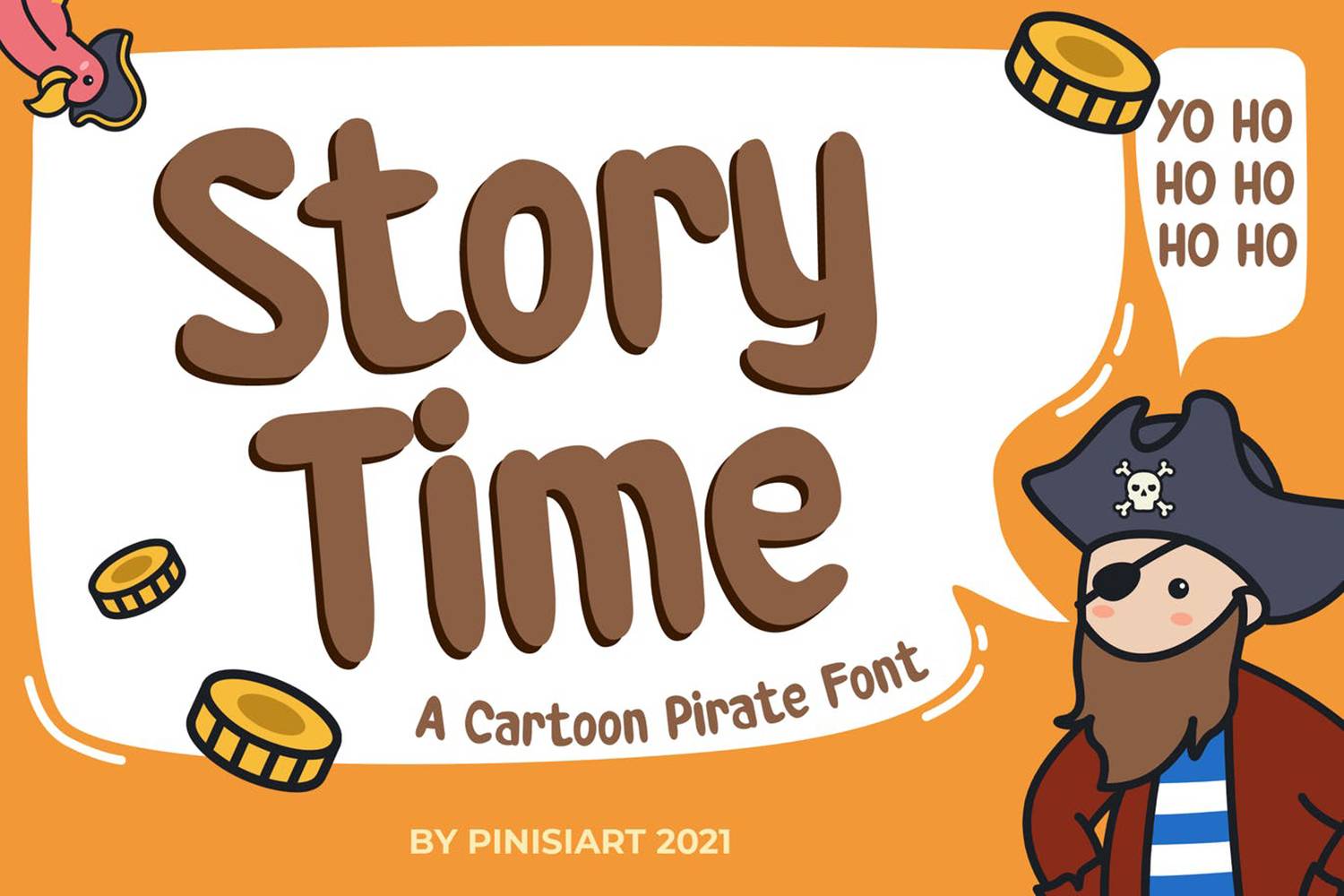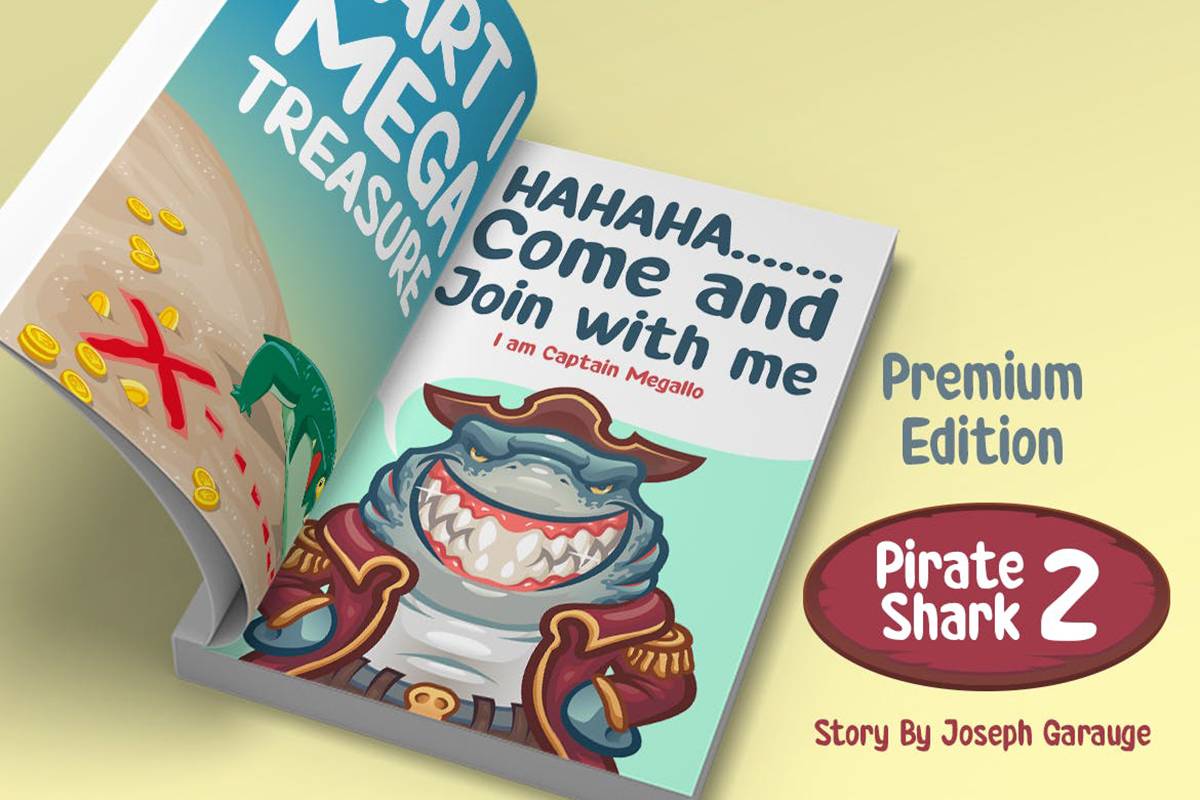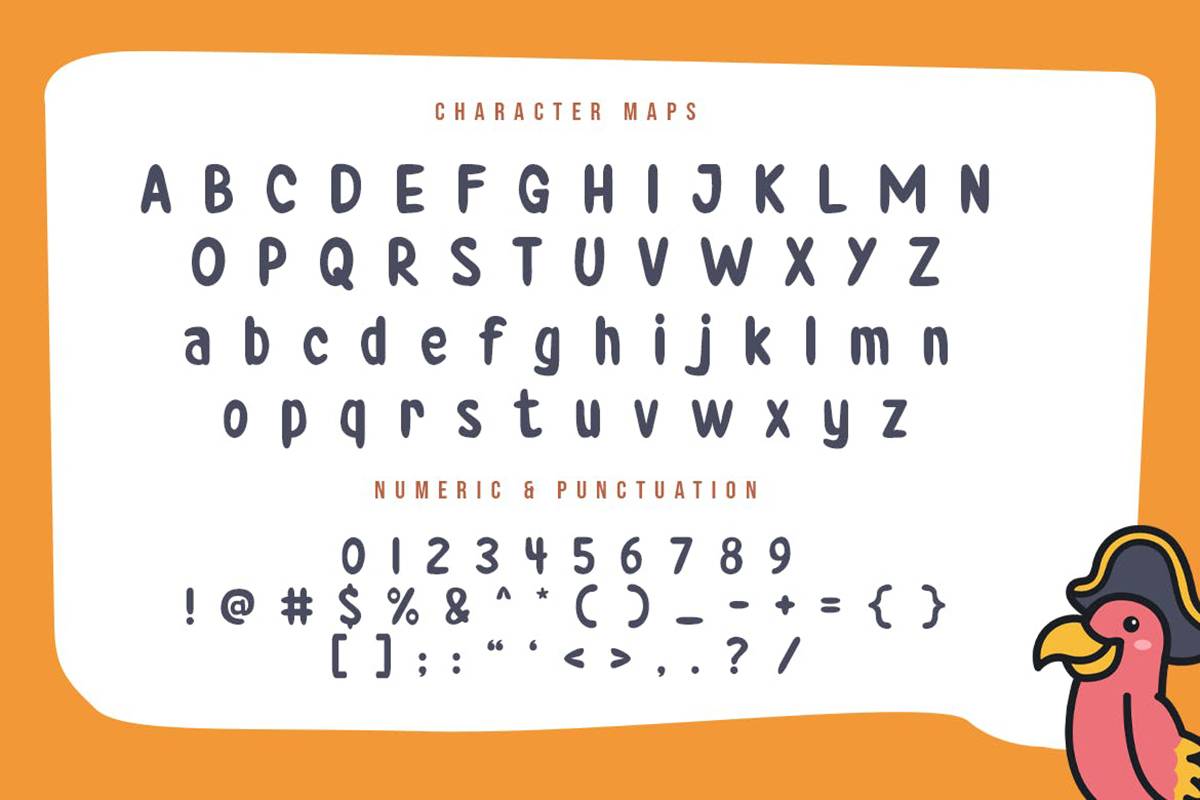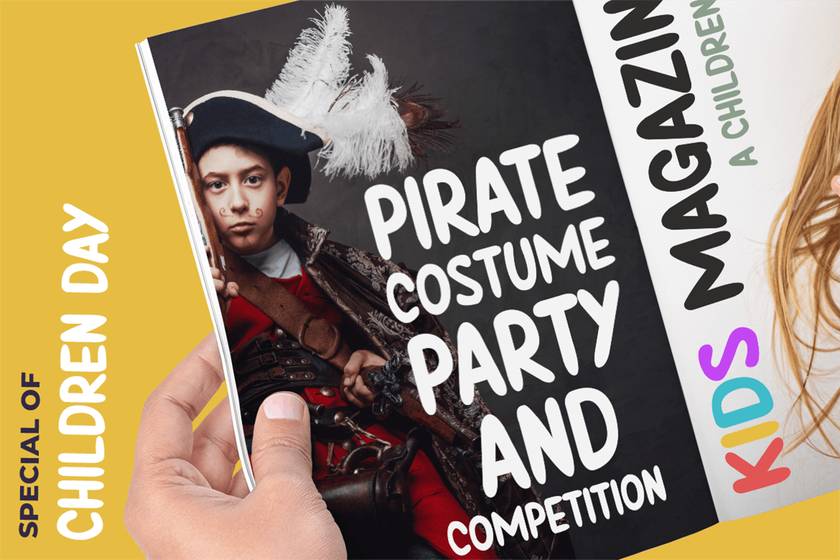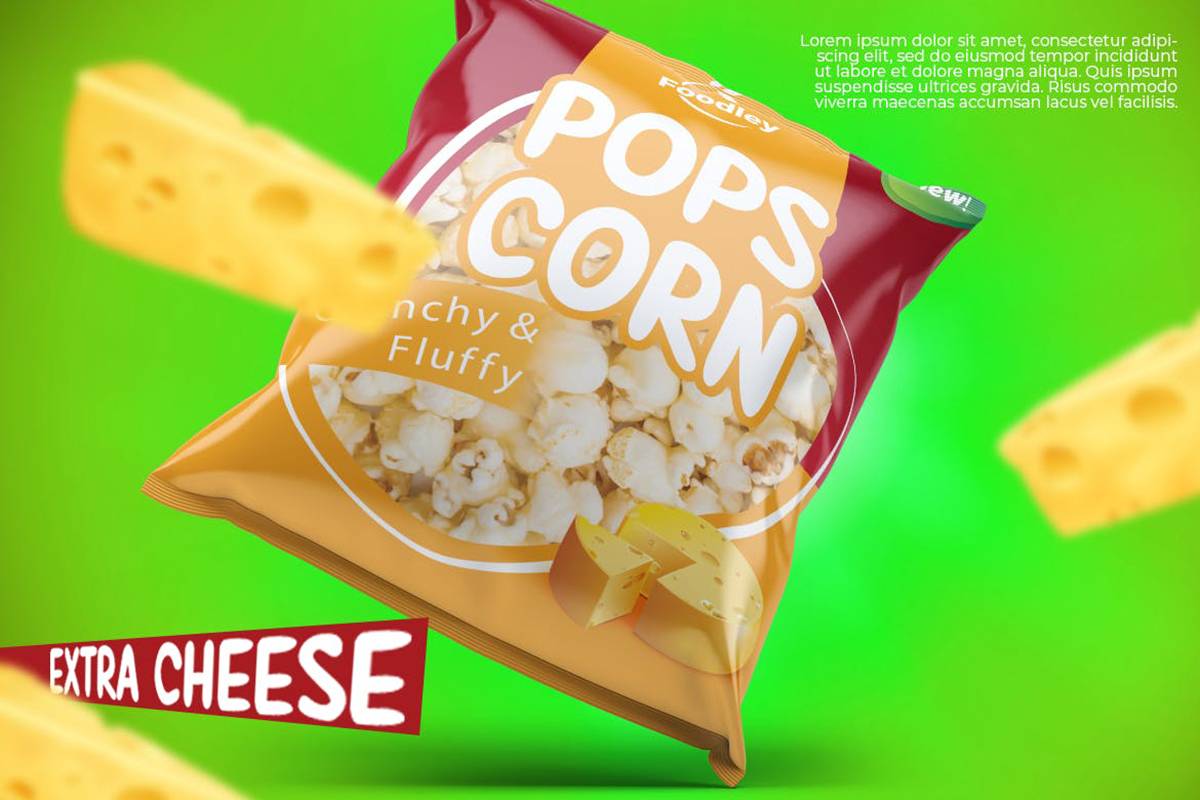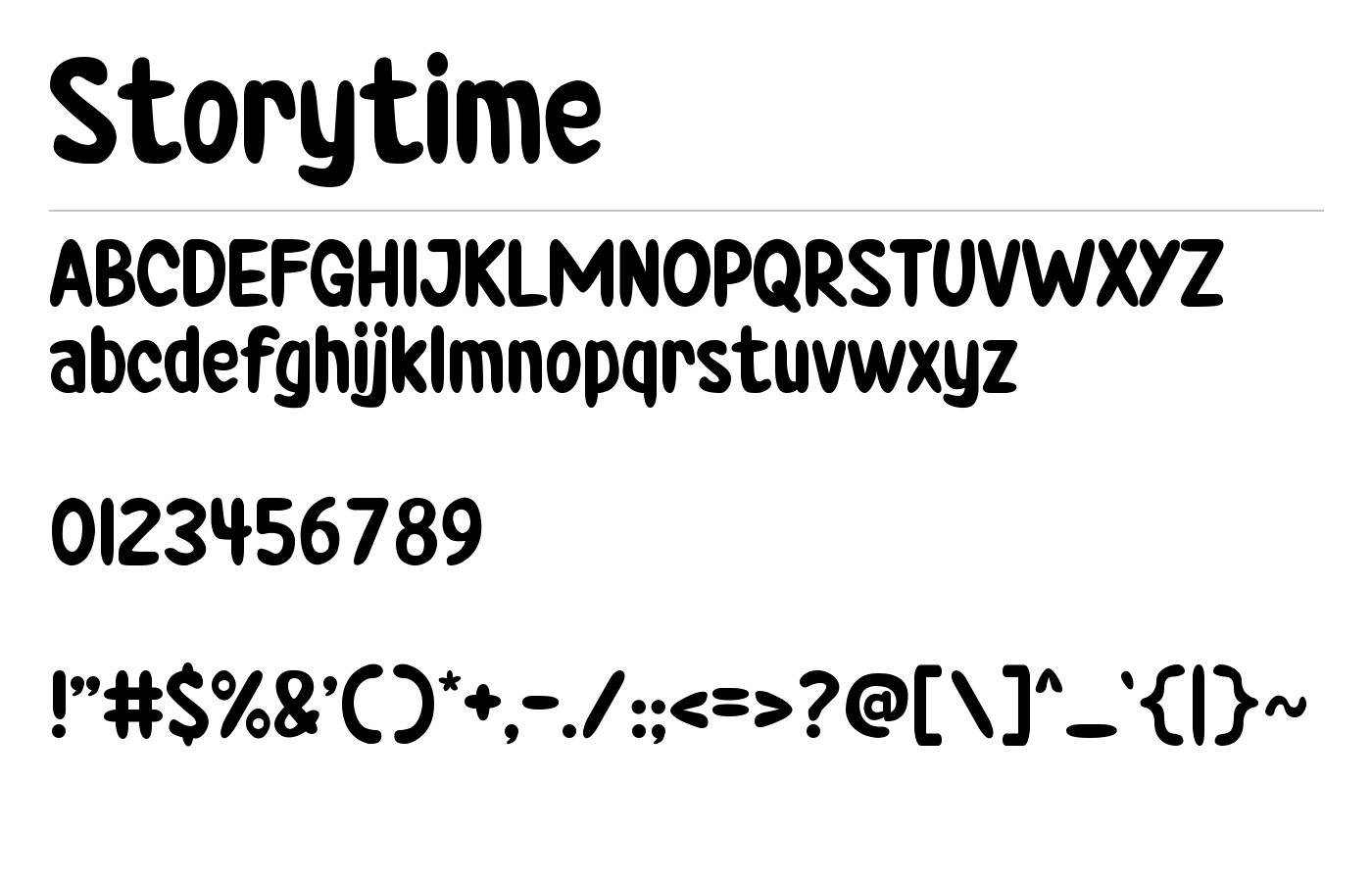
Storytime is a playful, rounded sans serif font with a friendly and casual style. Its moderate weight and uniform stroke width give it an approachable and easy-to-read appearance, ideal for children’s books, informal branding, and creative projects that want a warm, inviting feel. This font works well in headlines and display uses where a fun, lighthearted tone is needed.
Storytime Font
About Storytime Font